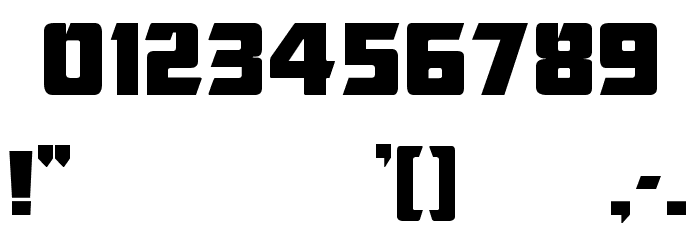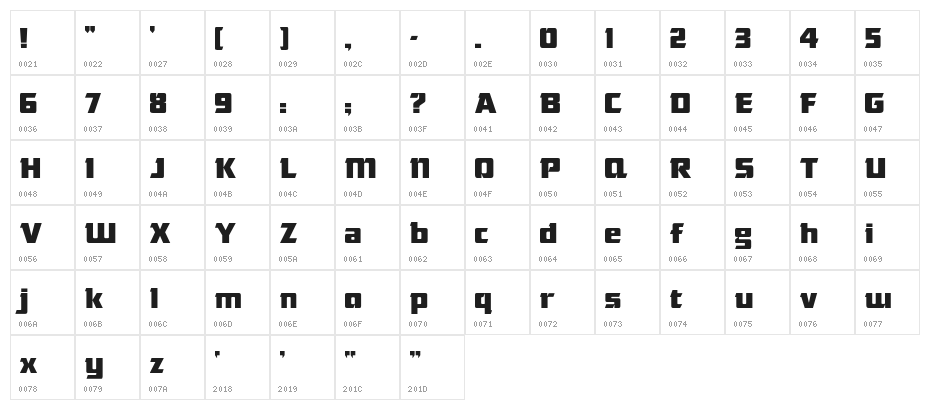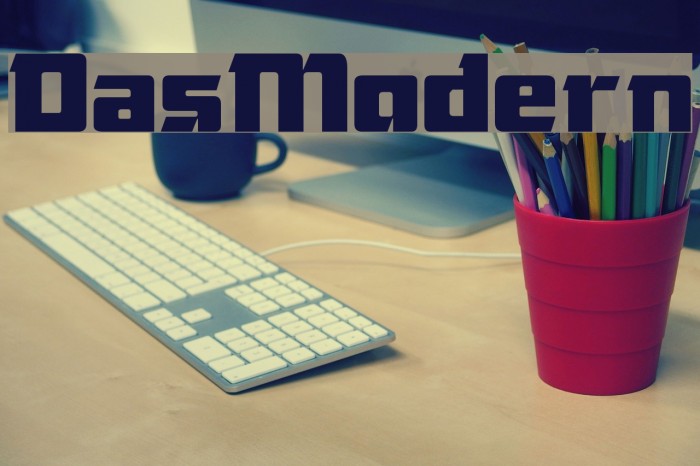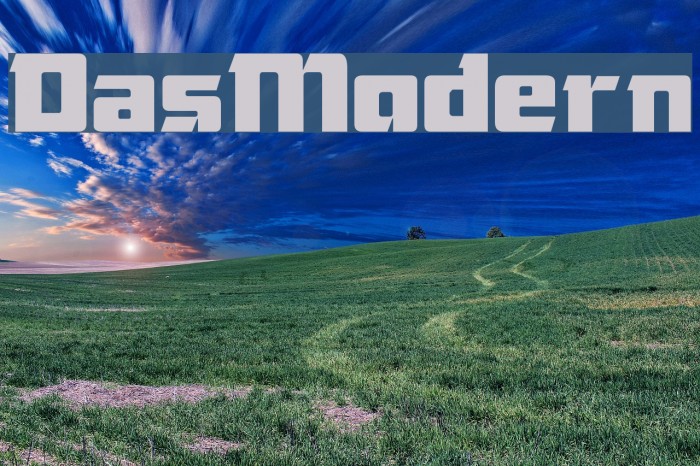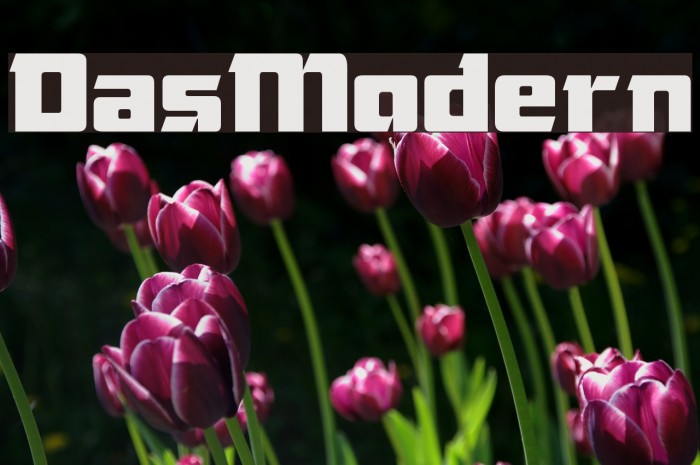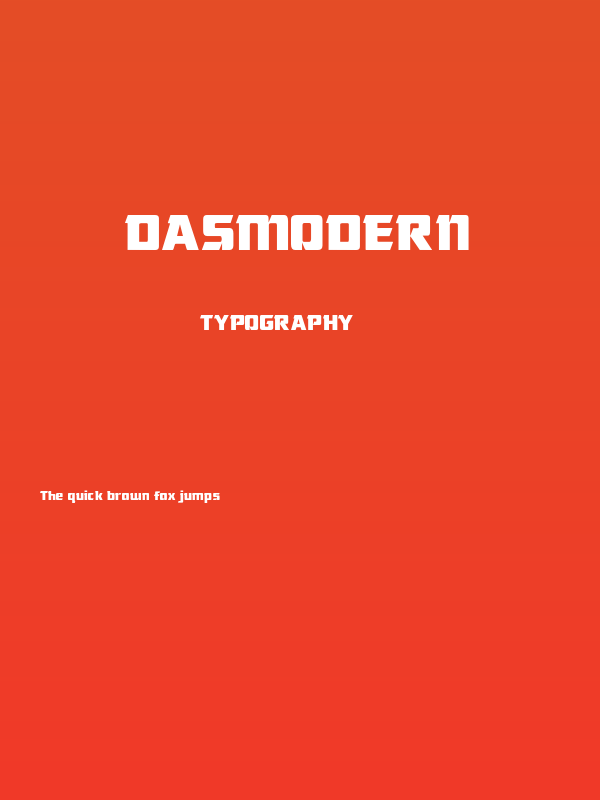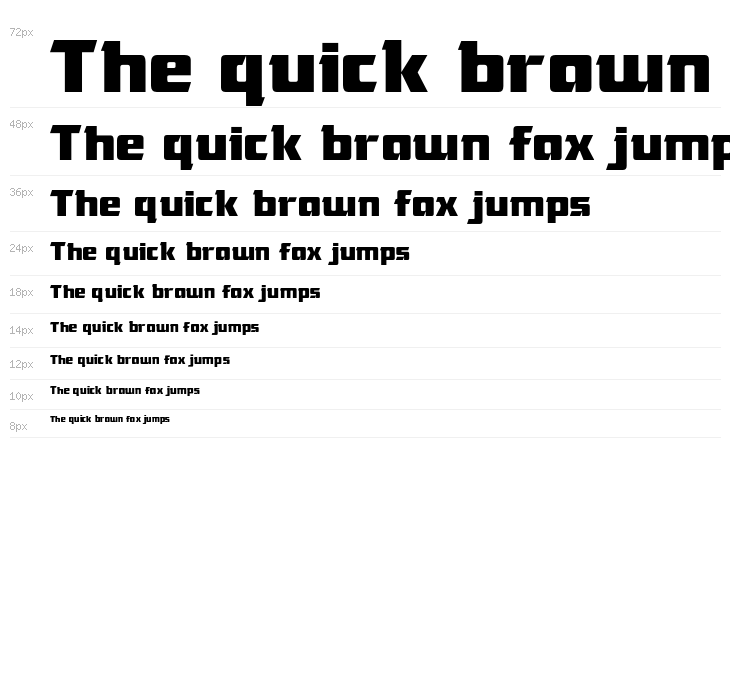
DasModern Font
DasModern Description
This font features a bold and geometric design with a strong presence. The characters are constructed with thick, block-like strokes that give a sense of stability and modernity. The uppercase letters are particularly striking, with sharp angles and a uniform height that creates a cohesive look. The lowercase letters maintain the boldness of the uppercase, with slightly rounded edges that add a touch of softness to the overall design. Numbers are equally bold, ensuring they stand out in any context. Special characters are designed to match the robust style, making them easily recognizable and consistent with the rest of the font. The overall appearance is clean and impactful, suitable for making statements in design.
| Proposed Projects | Ideal for branding, posters, headlines, and any project requiring a strong visual impact. |